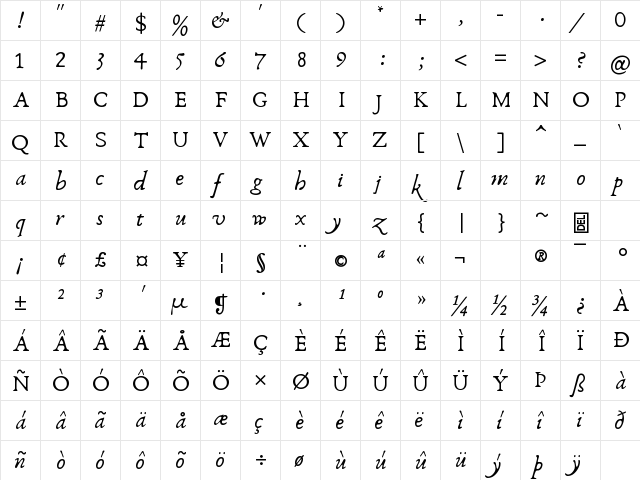
Anaktoria Regular
| Designer | George Douros |
Design Context for Anaktoria Typeface
Anaktoria is a composed and adaptable typeface that performs quietly and consistently across a wide range of design contexts.